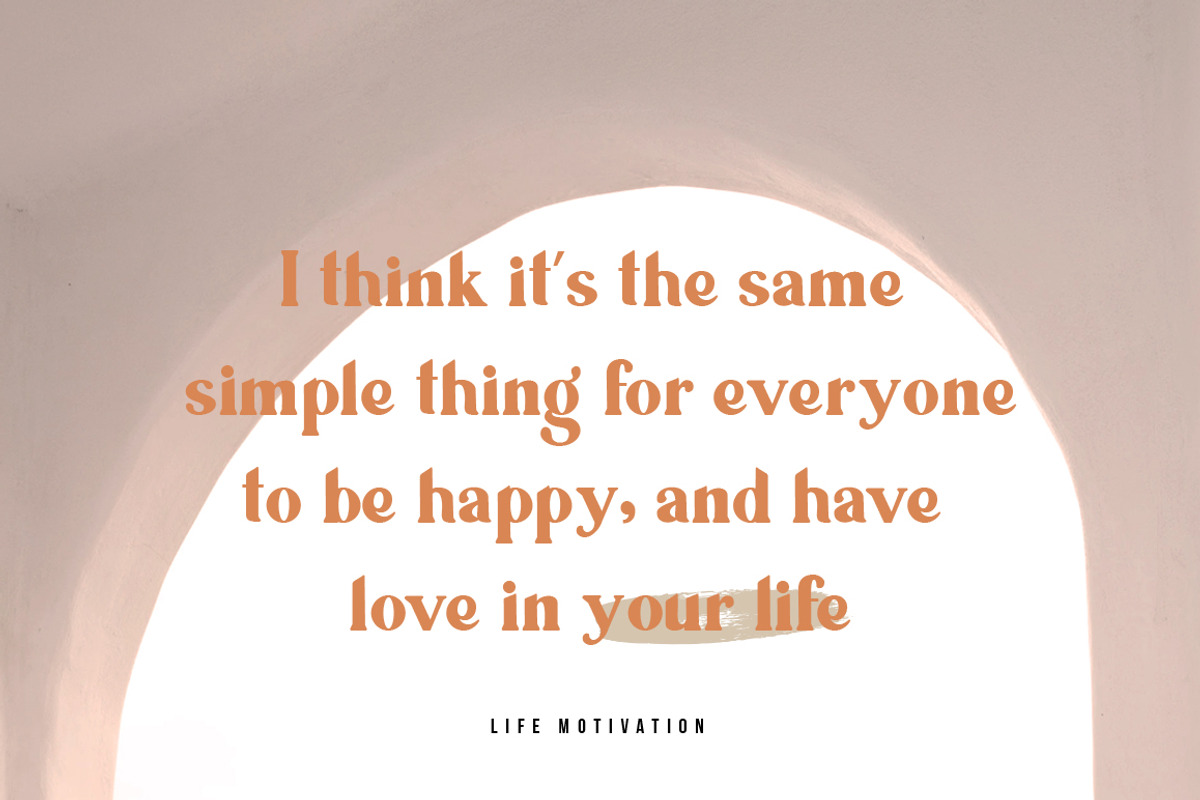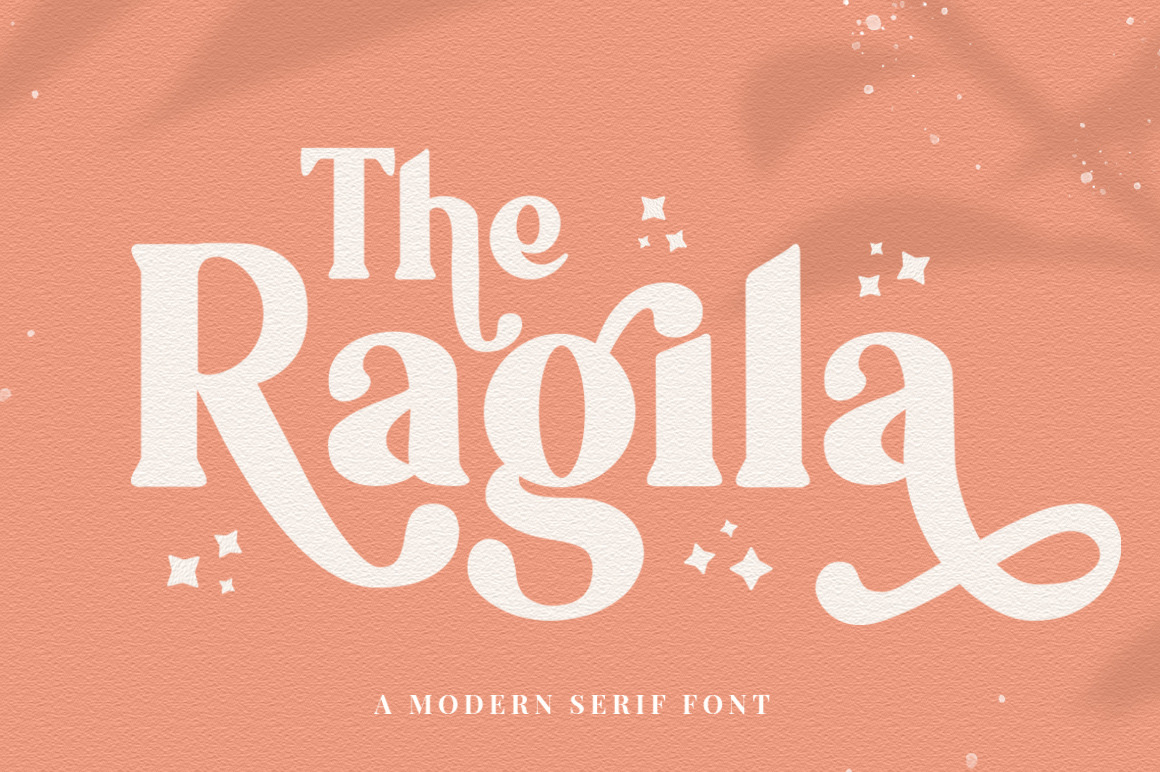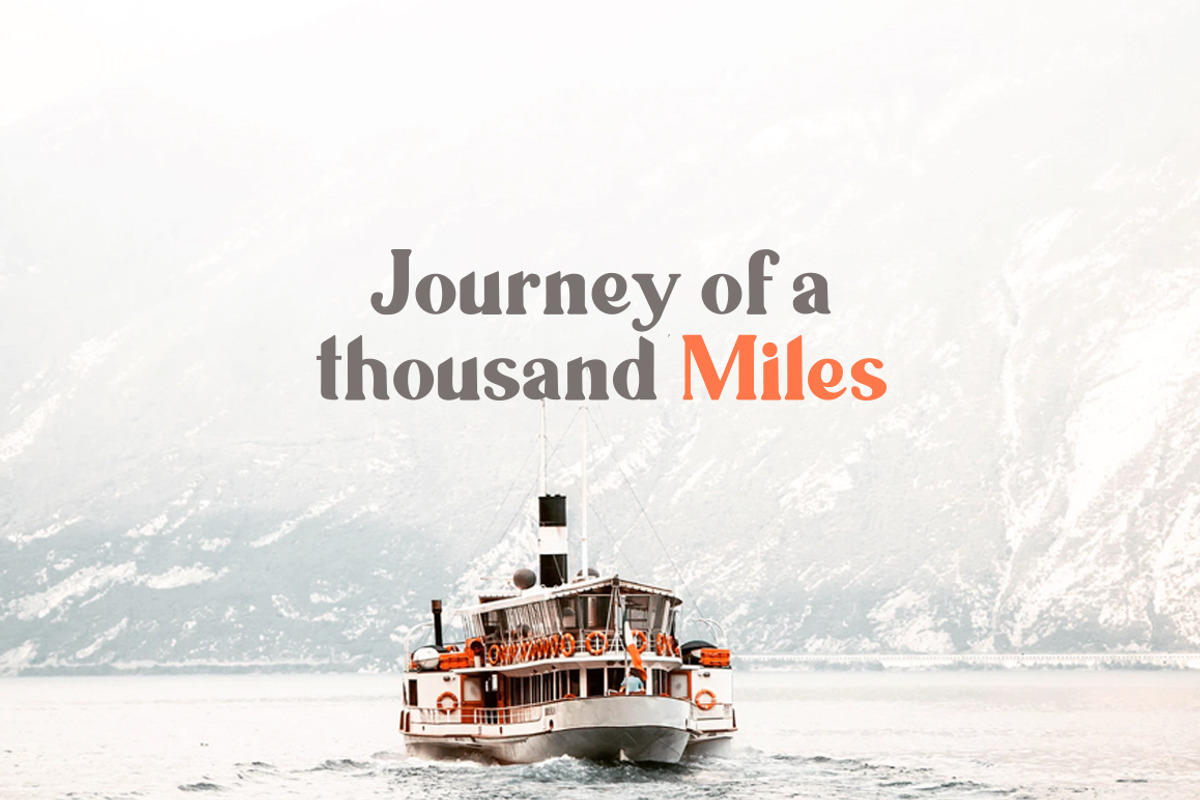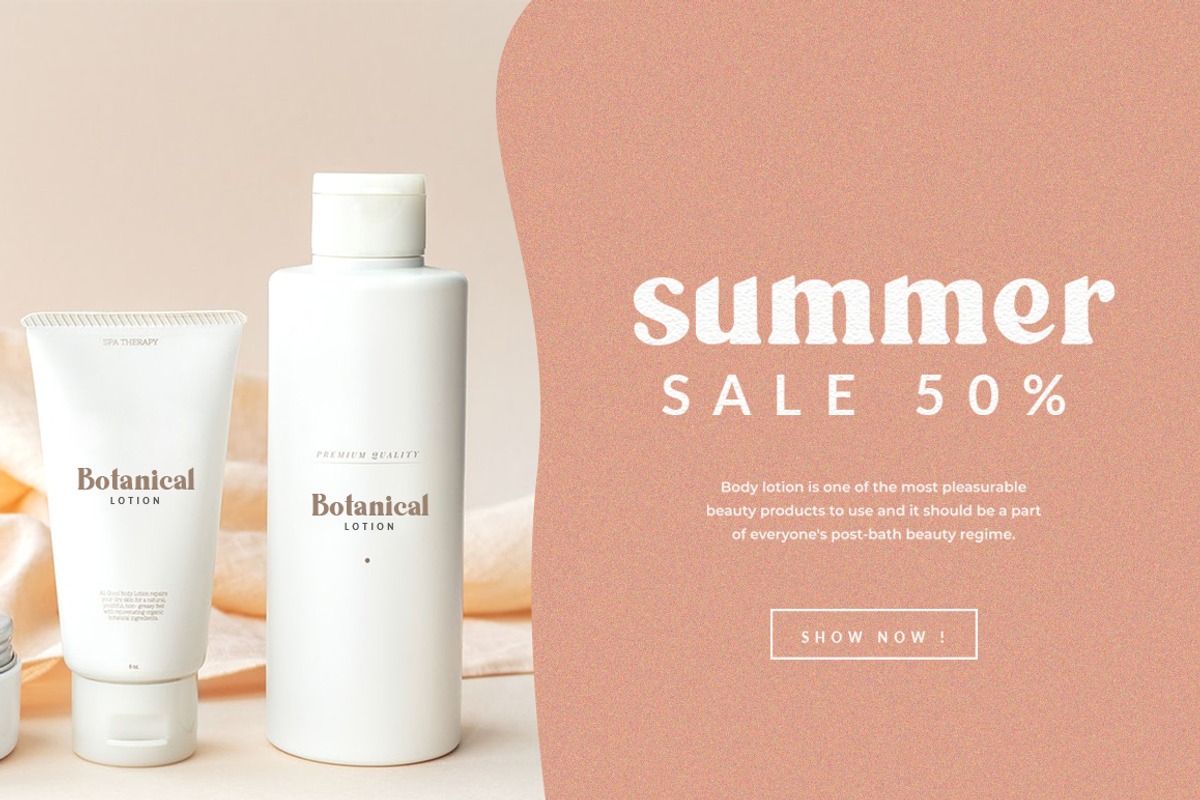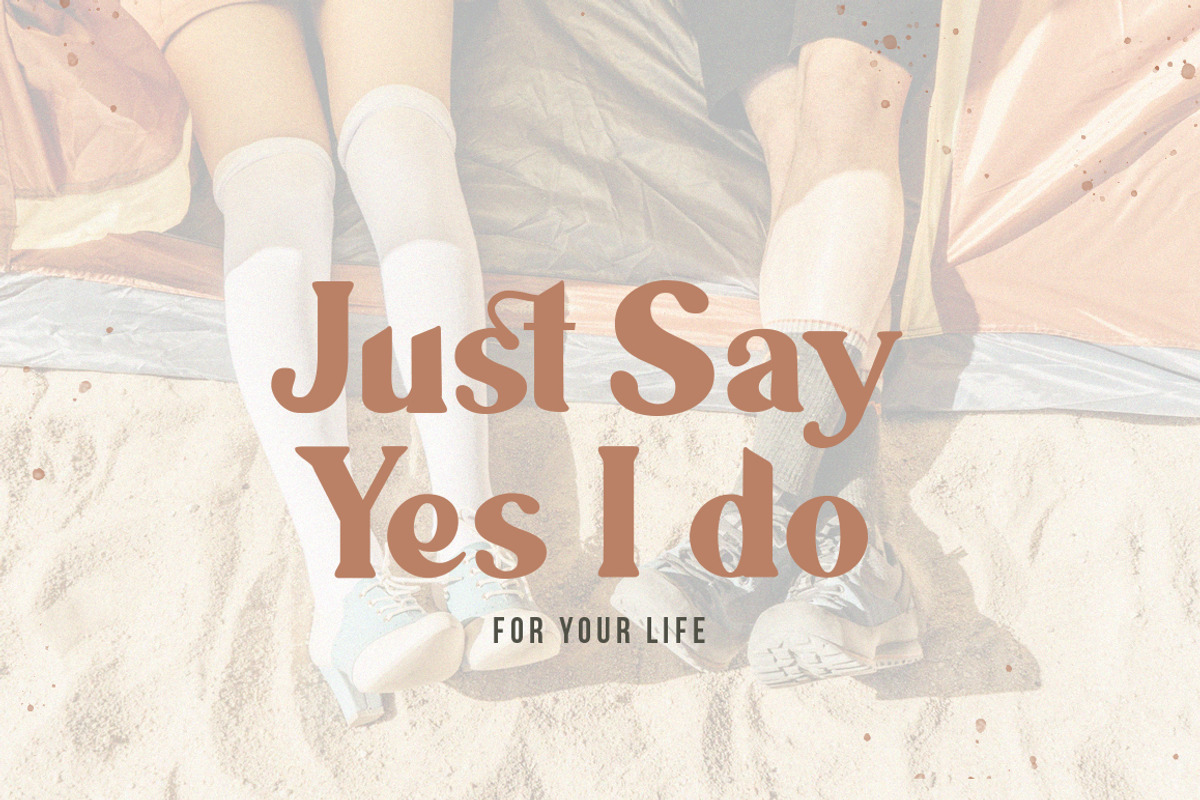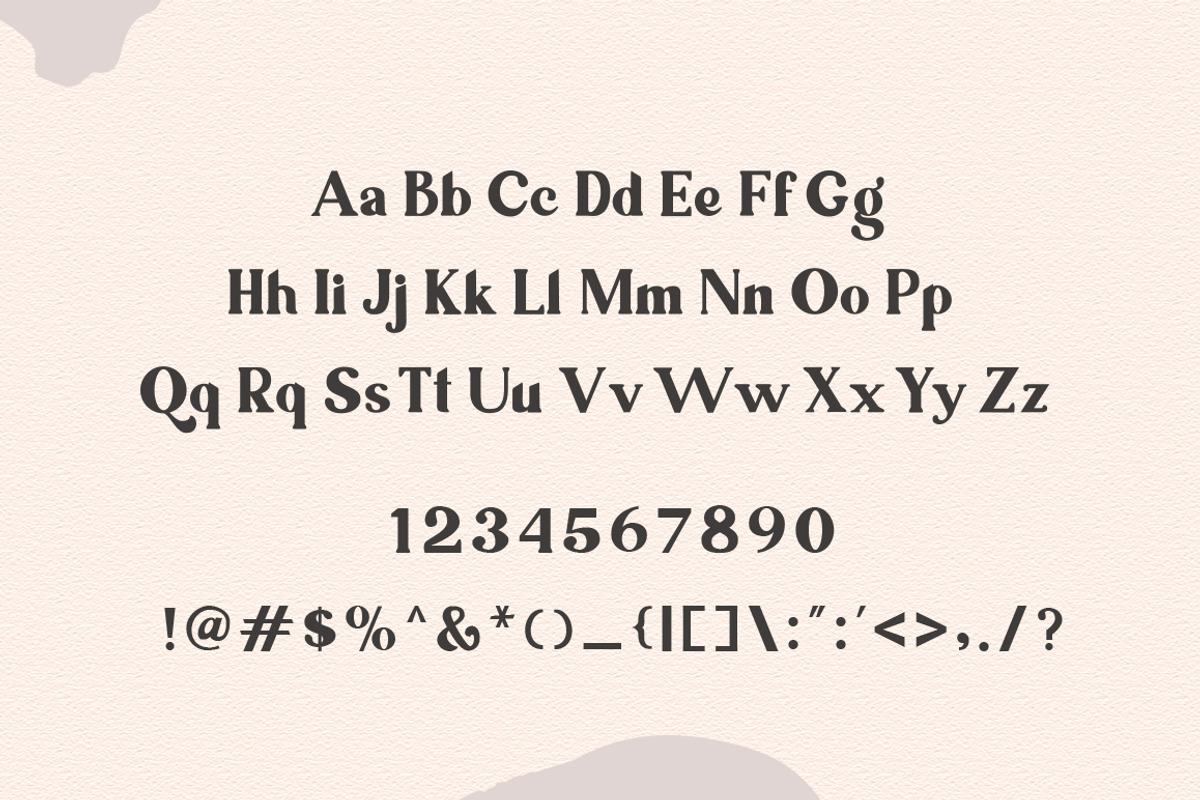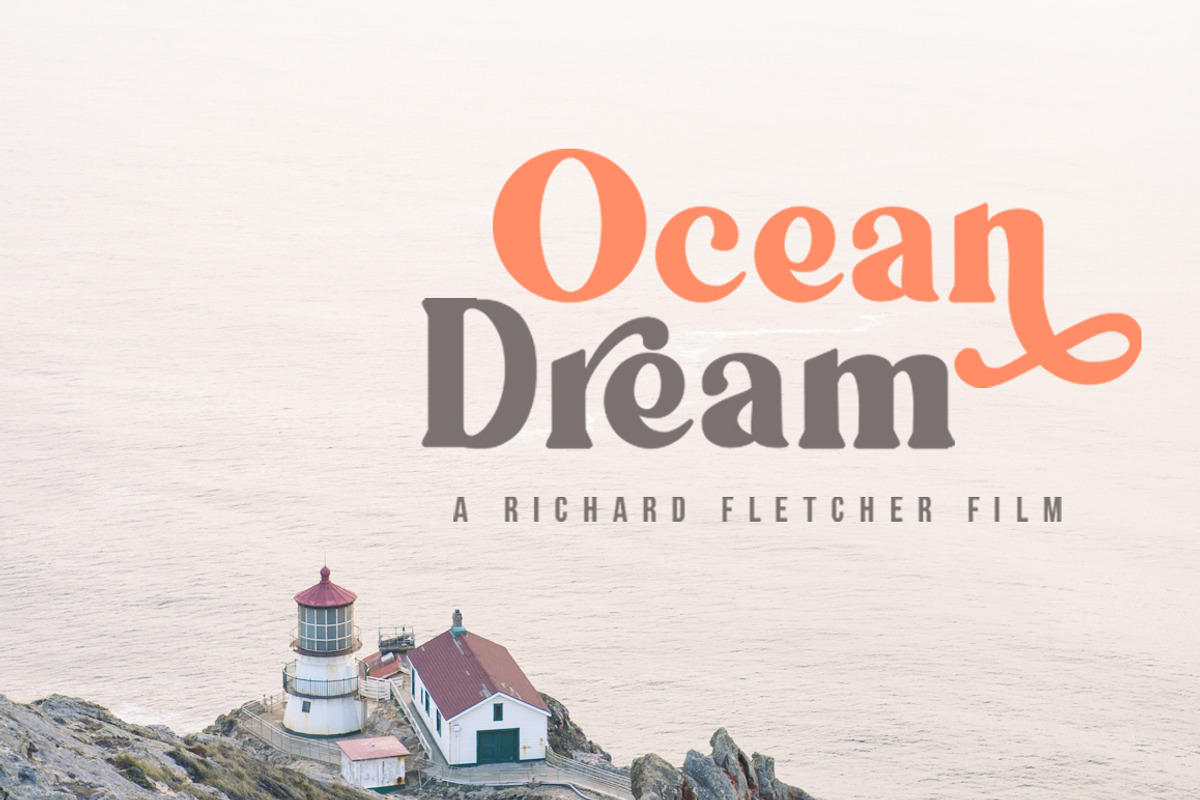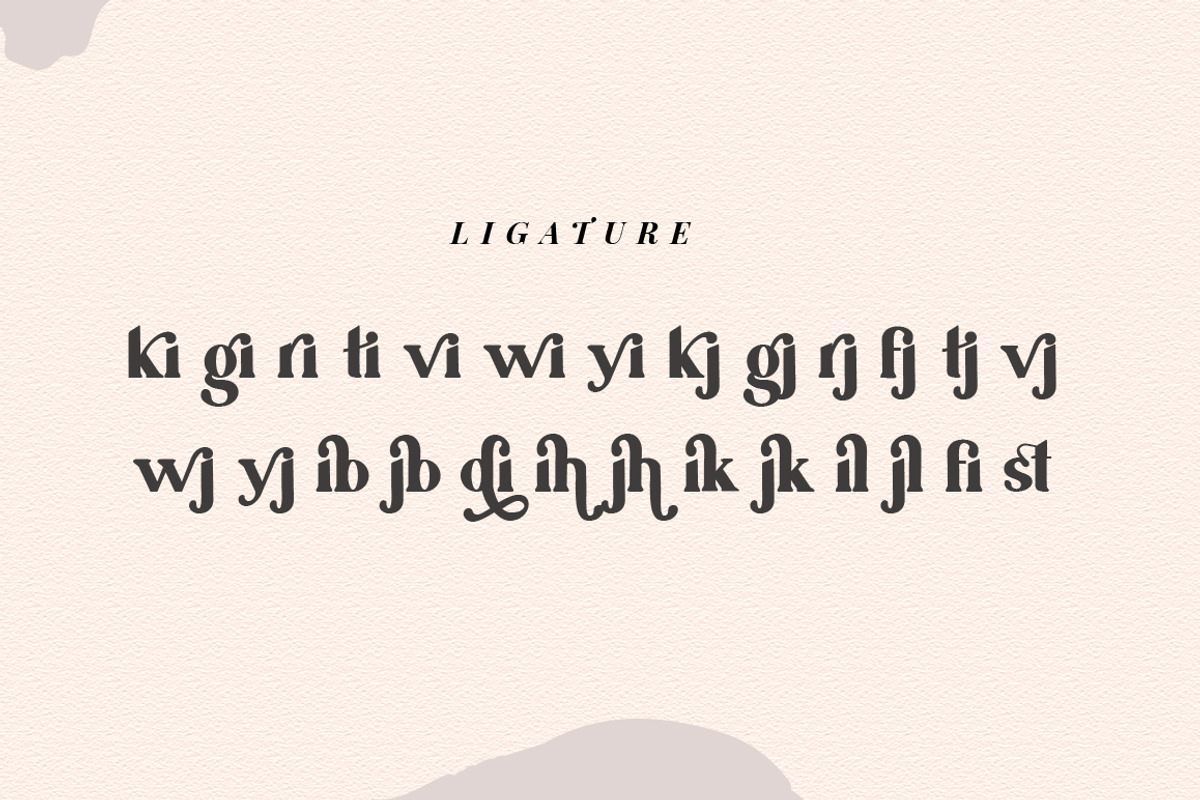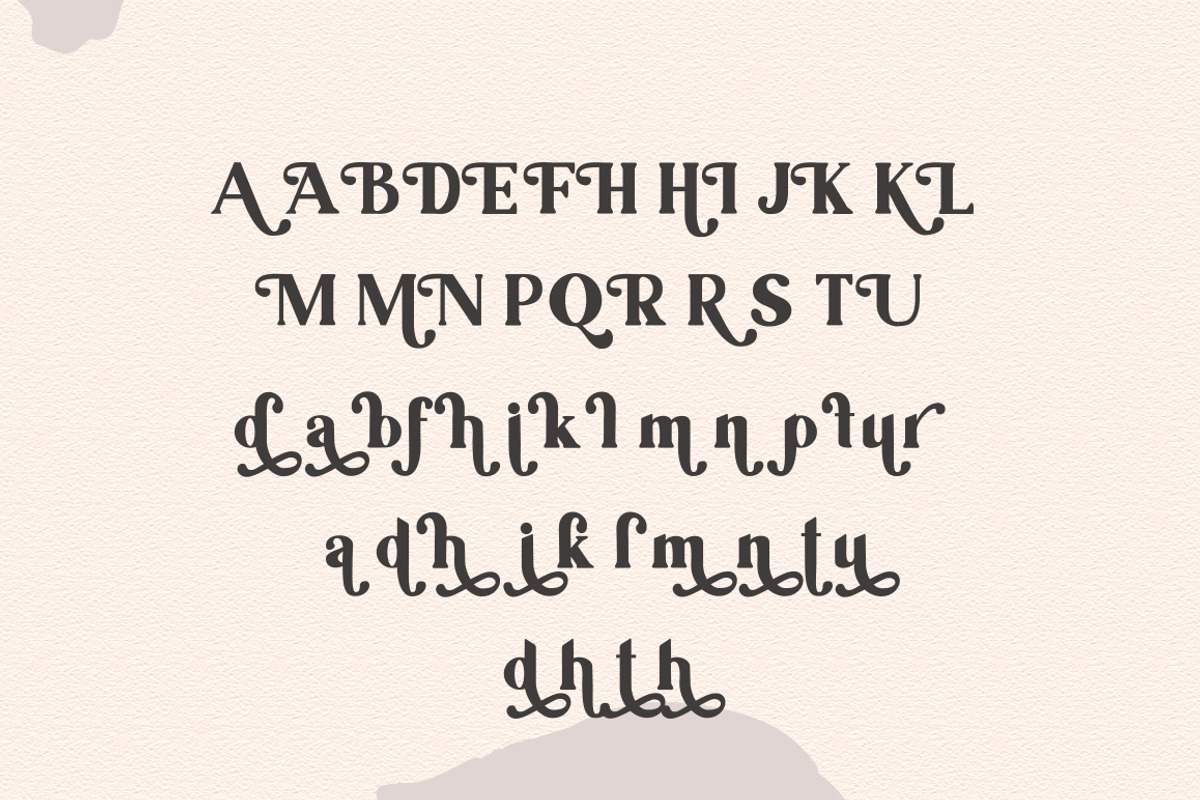
Ragila ~ Ligature Serif Font
Introducing Ragila Serif - Inspired by some of the edgiest looks from the modern luxury fashion.
Fancy Typefaces with tons of alternative characters, multilingual support and unique ligatures.
Ragila Serif is very versatile fonts.It easily cooperating together and perfect for creating the traditional style logos, labels, package design, lettering for t-shirts and much others.
- Swash Feature
- Documentation PDF Multilingual support It also includes a clean version without texture. OpenType features (ligatures and alternates) helps to make your lettering more interesting. Also there is swashes alternate